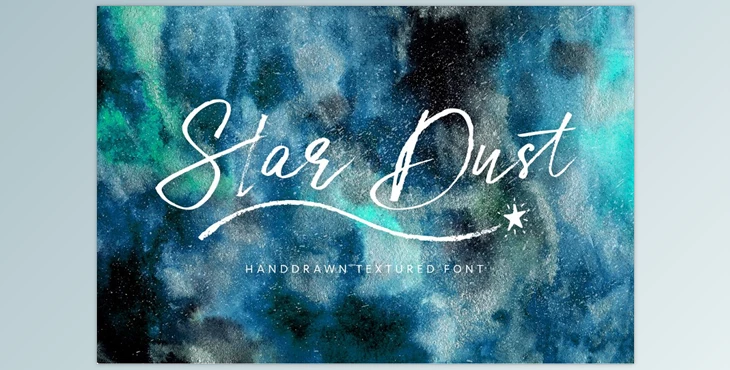
Star Dust Font & watercolor textures 2005572: Star Dust is an elegant script font with hand-drawn texture, alternate symbols, and ligatures spanning the entire alphabet. Additionally, you will receive an additional font, the Stardust Doodle. It has 26 swashes and ornaments matching the letters A to Z.
It's not the end of it :) Bonus 20 gorgeous watercolor hand-drawn textures. The images are in high resolution and 300ppi, available in two formats: JPG and PNG, with a transparent background. The textures are a color that the sky has. The glitters they contain resemble stars and stardust, making your designs unique and mysterious.